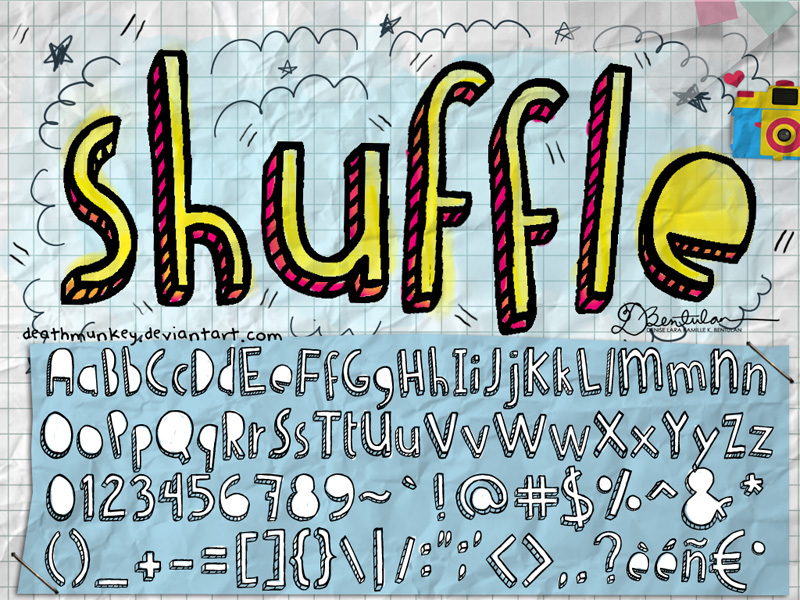
Denne Shuffle by Denise Bentulan is a free cartoon display font with lanky hand-drawn letters and a sketched three-dimensional finish. The uneven outlines bend and wobble from character to character, and diagonal hatching falls along the lower edges like quick pen shading. It looks cheerfully homemade.
Children's event posters are its strongest setting, since the tall loose forms read like lettering drawn for a school fair or puppet show. The same comic construction suits snack packaging and humorous merchandise. In editorial design, its hatched edges can echo spot illustrations and hand-inked borders.
The font was created over three days using a tablet. It has no enclosed counters, reducing ink use.
Additional characters are included.